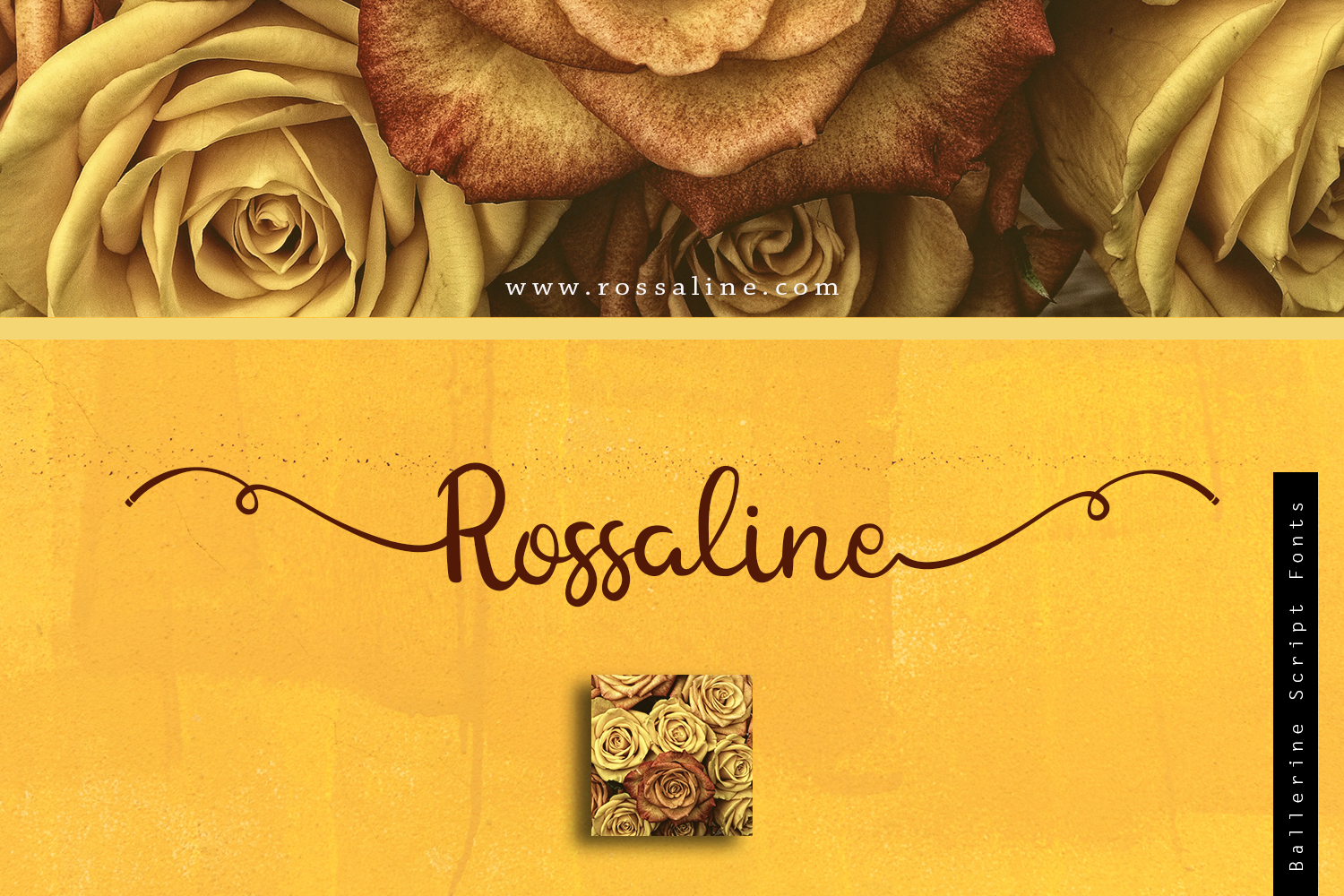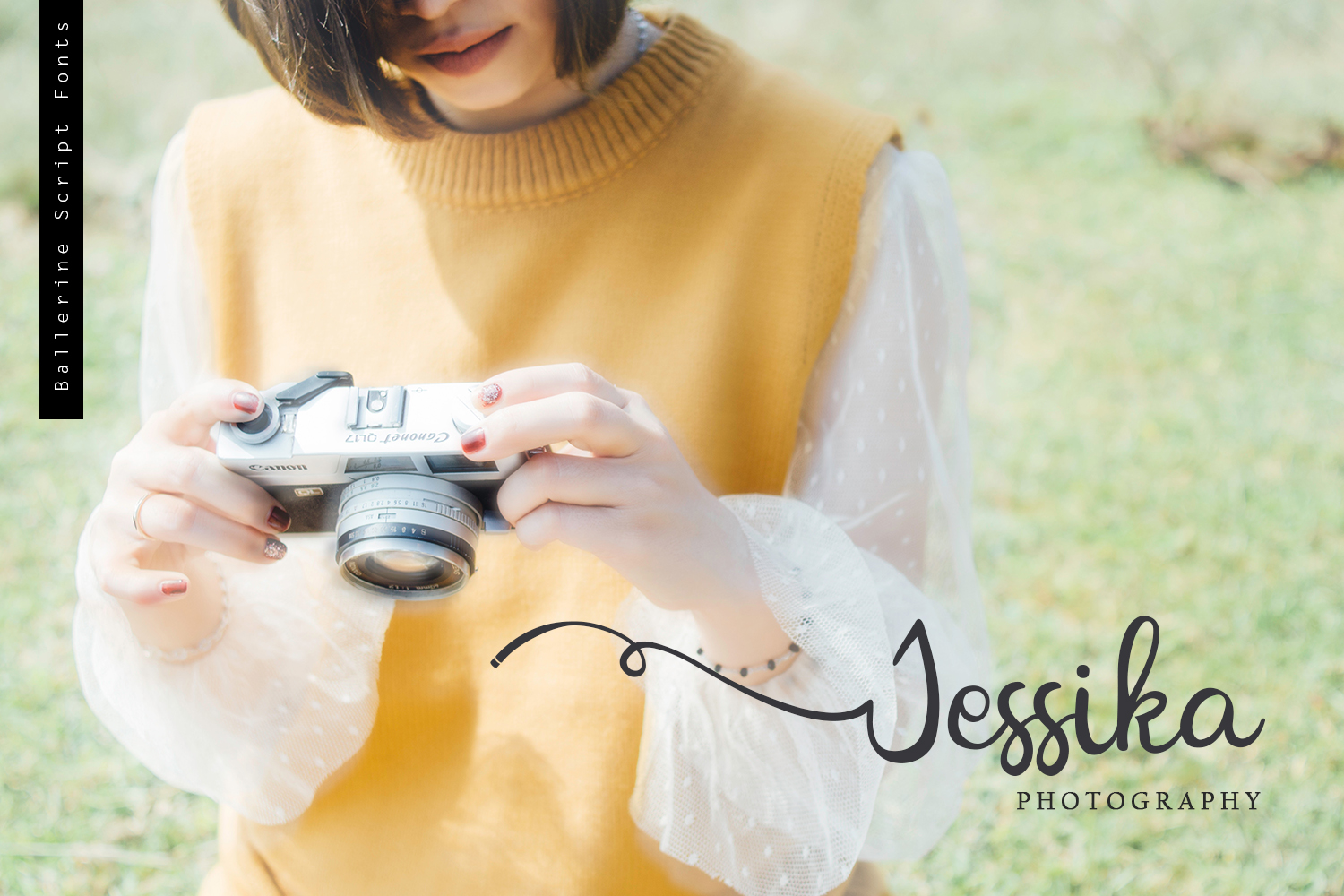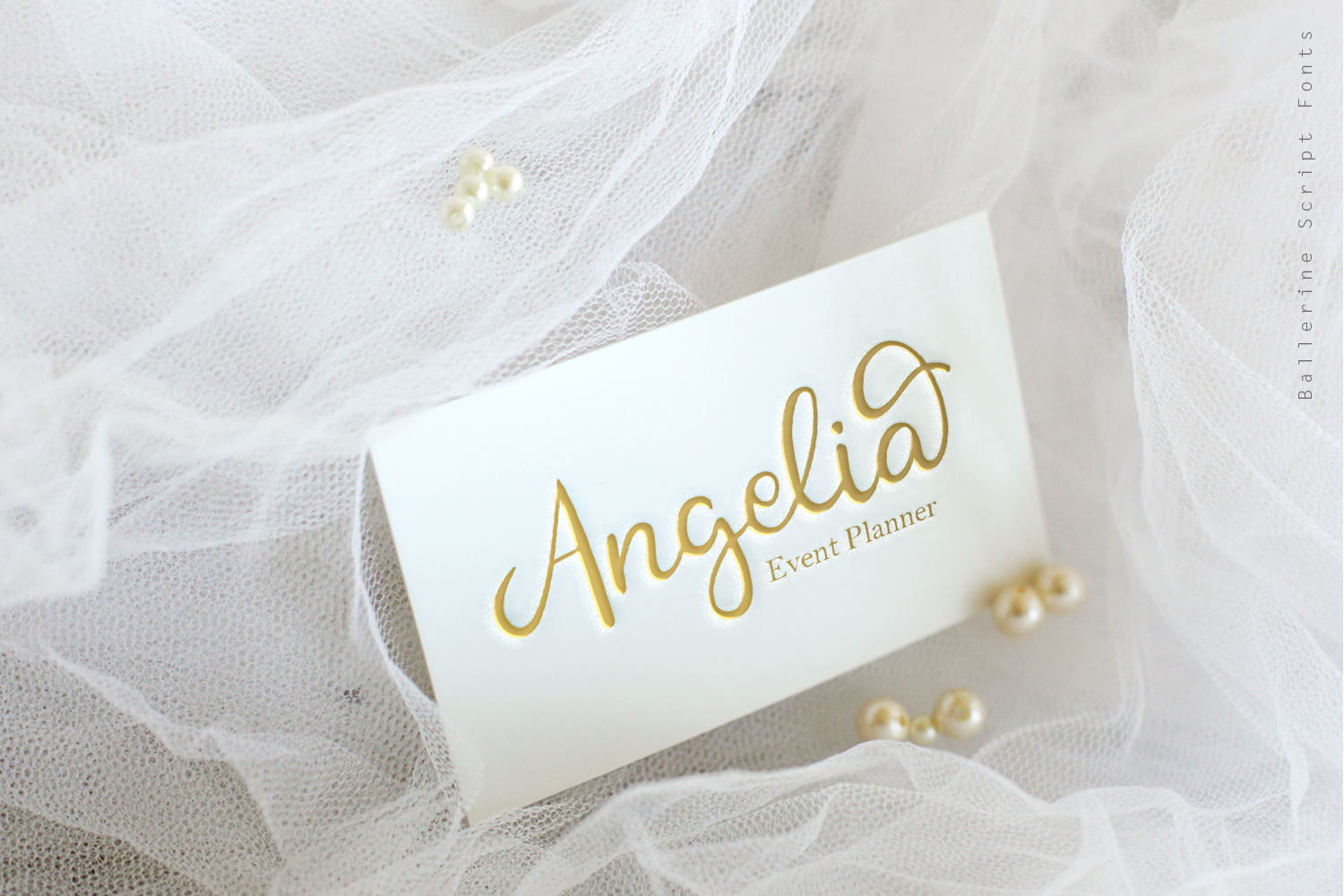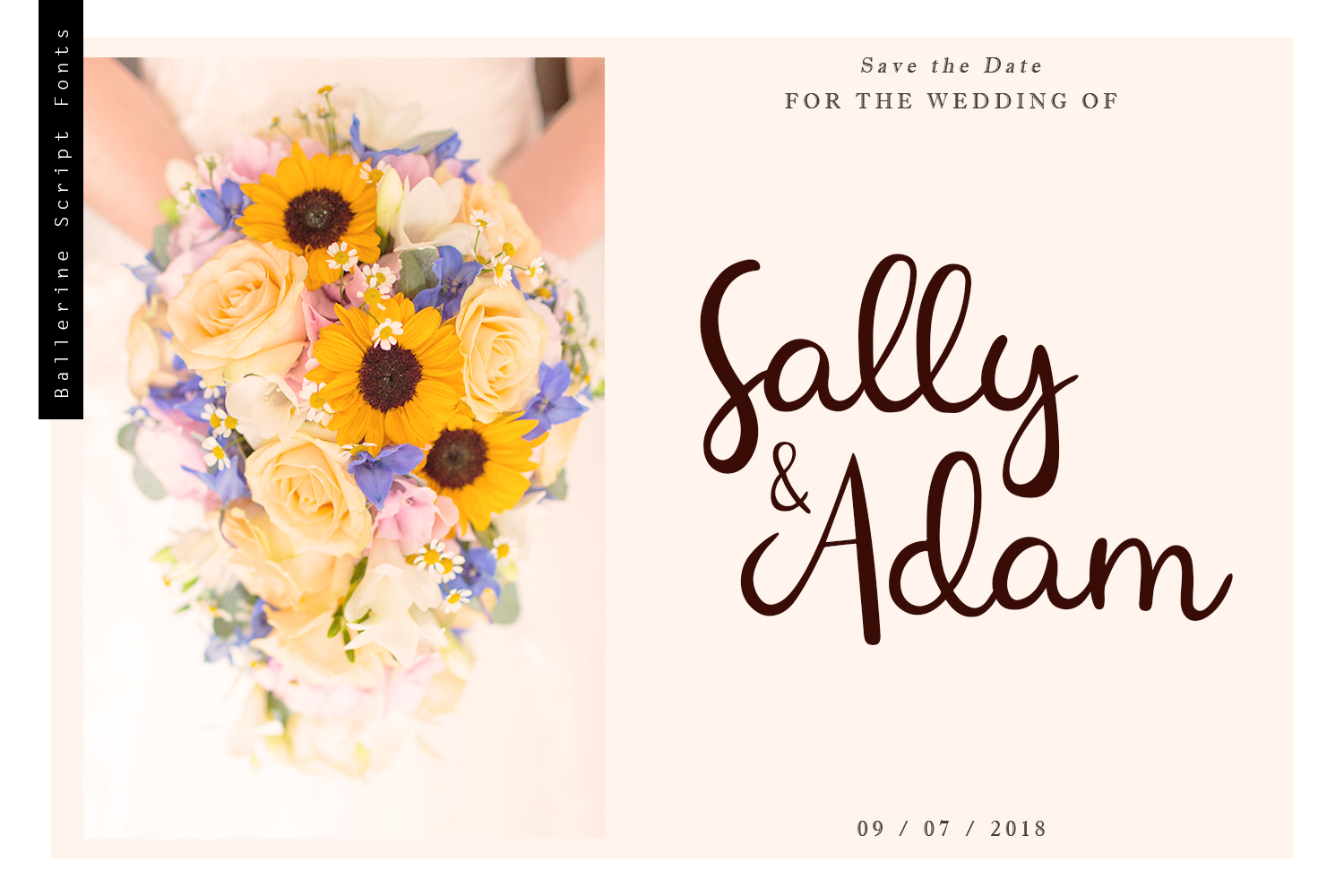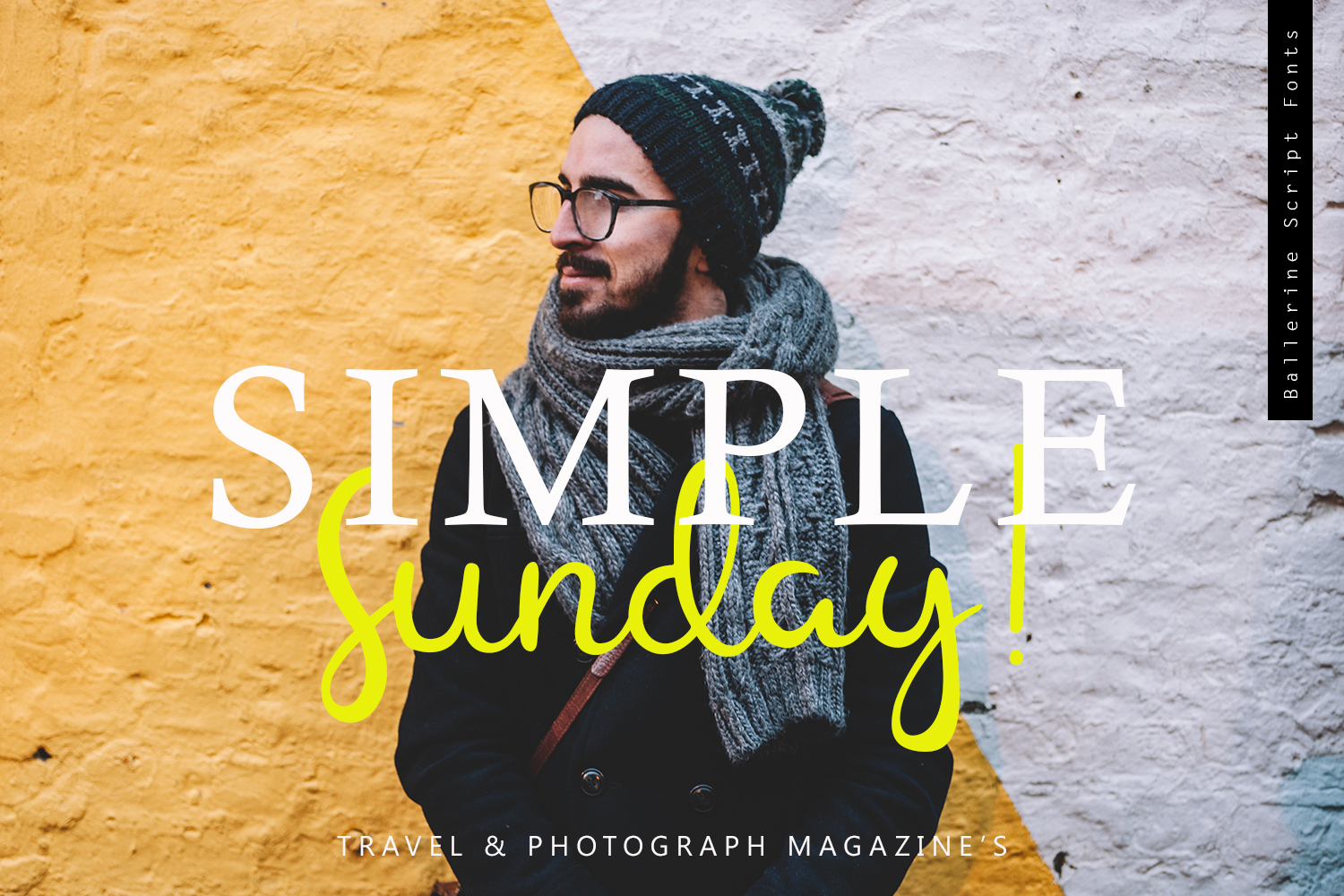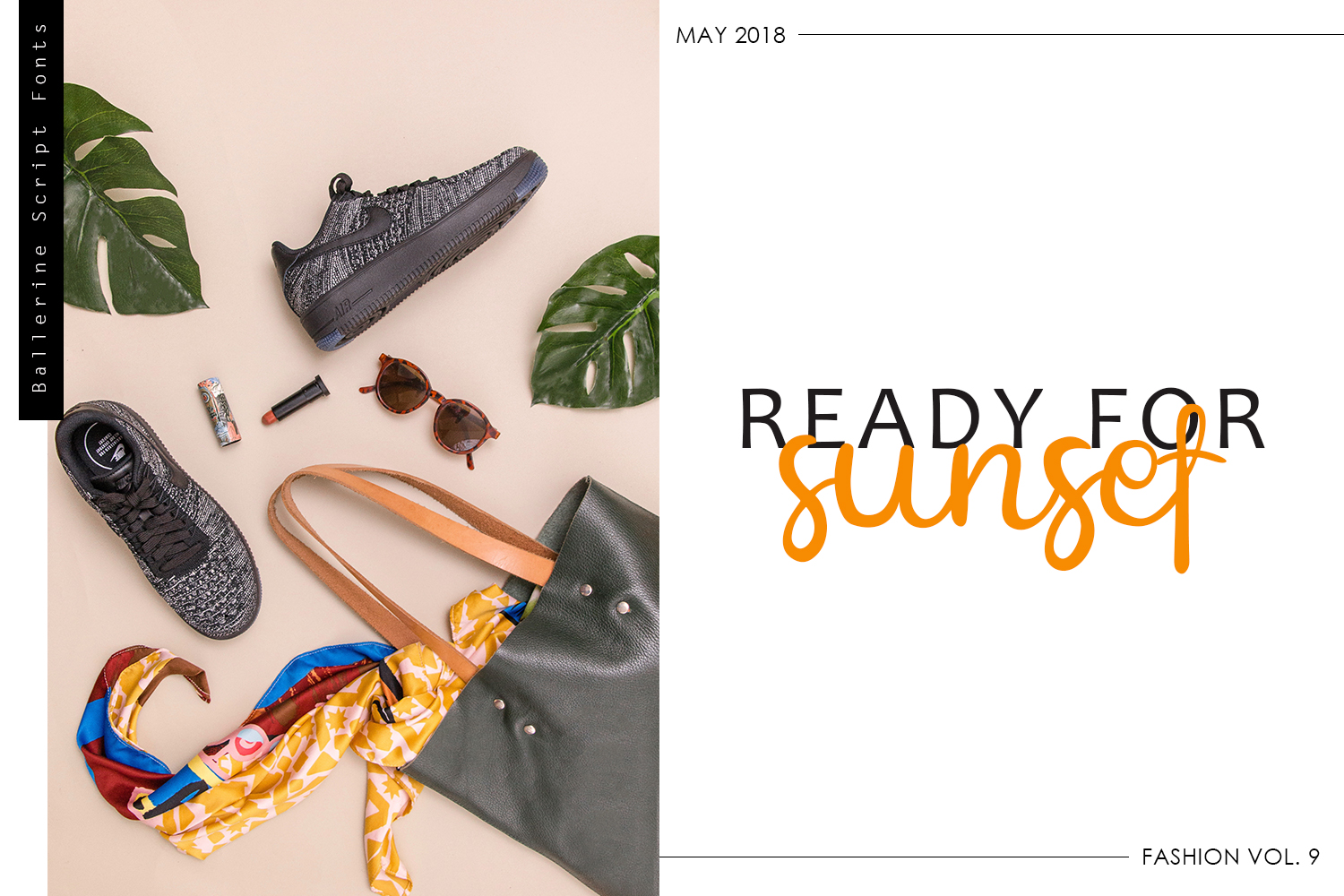
Introduction to Ballerine Font
As you sit at your desk, surrounded by scraps of paper and half-finished designs, you finally stumble upon the perfect font for your creative project. The Ballerine Font is a stylish and fashionable handwritten script that adds a touch of elegance to any design. Whether you’re working on an editorial piece or a personal project, this versatile font is sure to make your work stand out.
One of the most appealing features of the Ballerine Font is its ability to work seamlessly with transparent backgrounds, allowing you to create beautiful and eye-catching designs. As a valuable design resource, this font is a must-have for any serious designer looking to elevate their work.
About the Ballerine Font
Key Features of Ballerine Font
- High-quality, elegant design perfect for creative projects, such as wedding invitations, fashion magazines, or luxury branding.
- With its unique, flowing script style, the Ballerine Font is perfect for adding a touch of sophistication and elegance to any creative project.
Honest Review: Ballerine Font
The Ballerine Font has been a game-changer for my creative project. With its elegant and refined style, it adds a touch of sophistication to any design. I particularly appreciate the high quality of the font, which is evident in its smooth lines and precise letterforms.
One of the standout features of the Ballerine Font is its versatility. It works well for both digital and print projects, and its transparent background makes it easy to customize and combine with other design elements.
- ✨ Elegant and refined style
- ✨ High quality and precise letterforms
- ✨ Versatile and suitable for both digital and print projects
- ✨ Transparent background for easy customization
- ⚠️ Limited language support (may not be suitable for projects requiring multiple languages)
- ⚠️ May not be ideal for bold or dramatic designs (best suited for elegant and refined projects)
Introduction to Ballerine Font
The Ballerine Font is a high-quality design resource that can elevate your creative project with its elegant and sophisticated style. It’s a free download that can be used for various purposes, including branding, advertising, and editorial content.
Tips for Getting the Most Out of Ballerine Font
To get the most out of the Ballerine Font, use it in combination with other high-quality design resources, such as images and graphics. You can also experiment with different font sizes and colors to create a unique look.
Common Use Cases for Ballerine Font
The Ballerine Font is commonly used in creative projects, such as:
Branding and logo design
Advertising and marketing materials
Editorial content and publishing